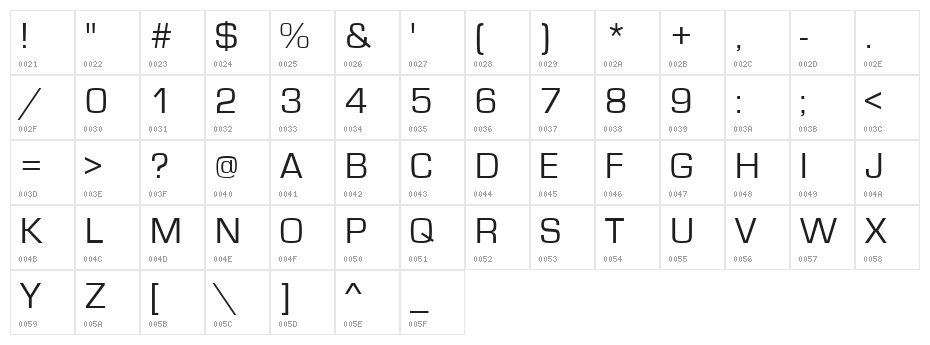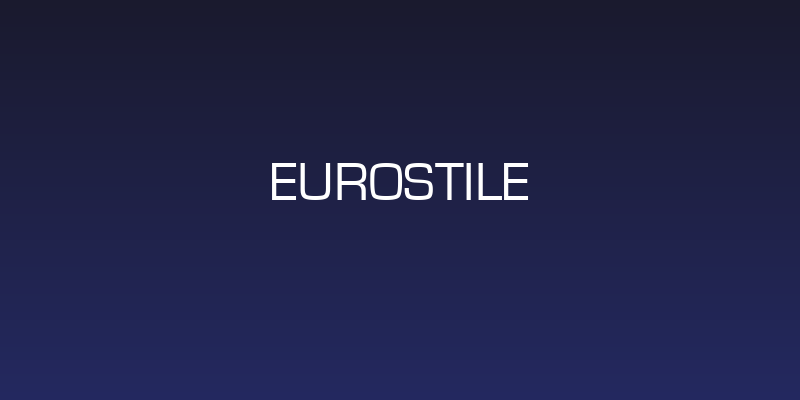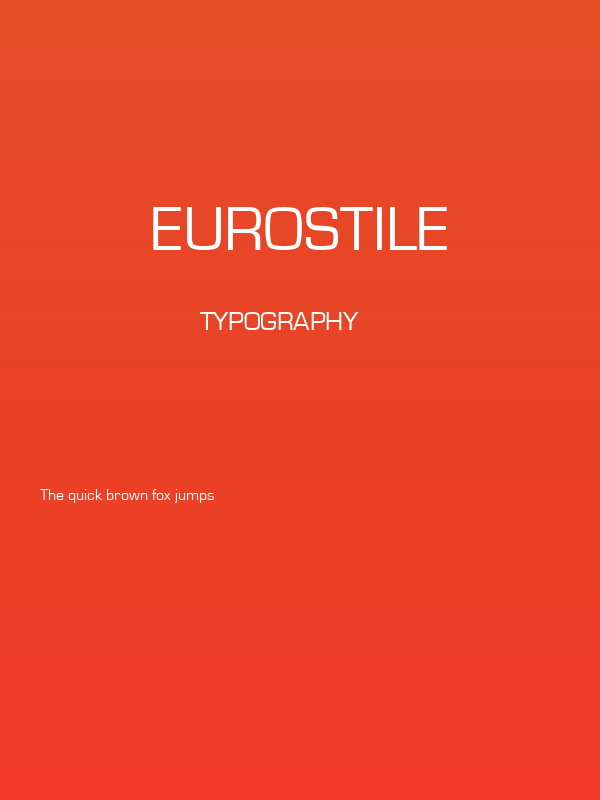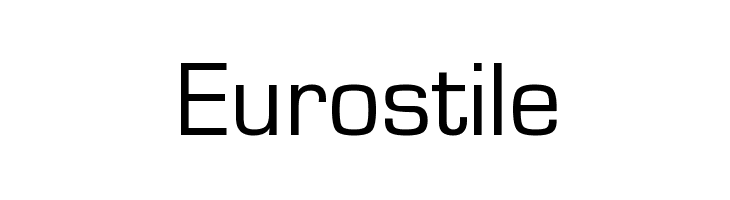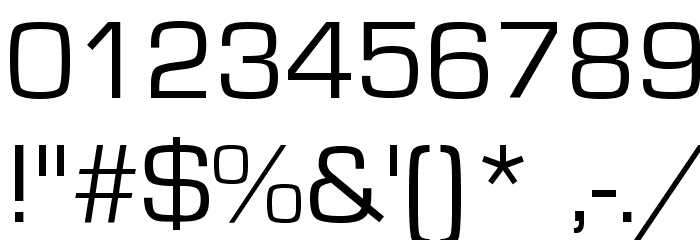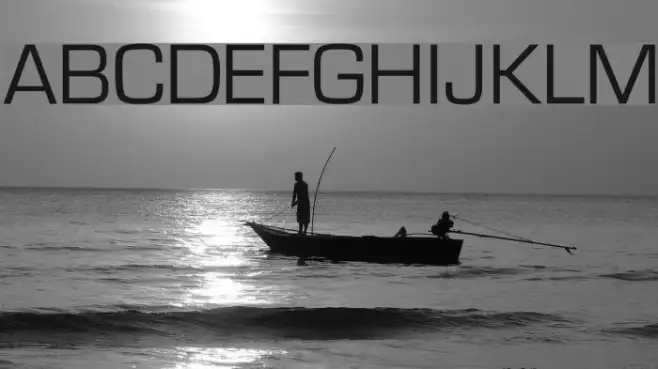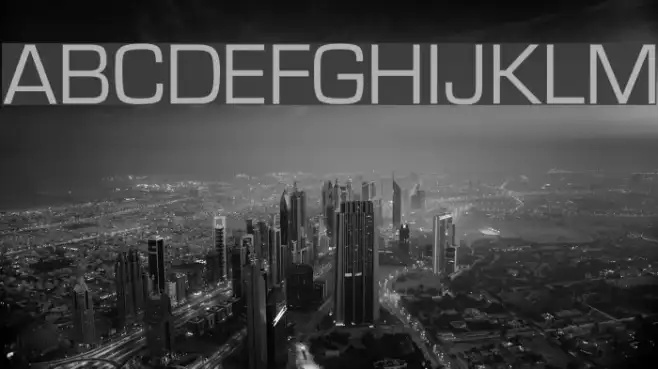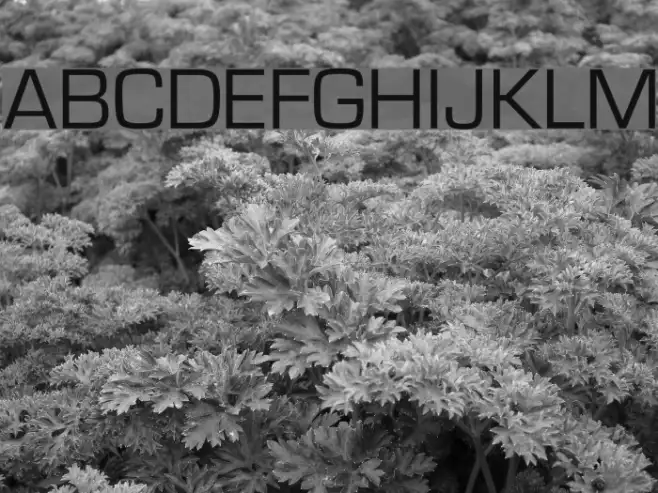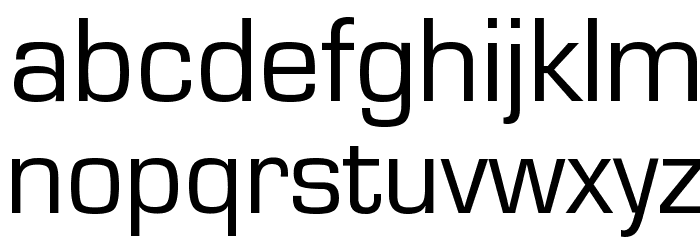
Eurostile Font
Eurostile Description
This typeface features a clean, geometric design with a modern and minimalist aesthetic. The characters are uniform in width, contributing to a balanced and orderly appearance. The uppercase letters are slightly wider, giving a sense of stability and strength, while the lowercase letters maintain a consistent height, enhancing readability. The numerals are clear and straightforward, matching the overall geometric style. The special characters are well-integrated, maintaining the font's cohesive look. This font is versatile, suitable for various design applications where a contemporary and professional appearance is desired.
| Proposed Projects | Ideal for corporate branding, technology-related projects, signage, and editorial design. |